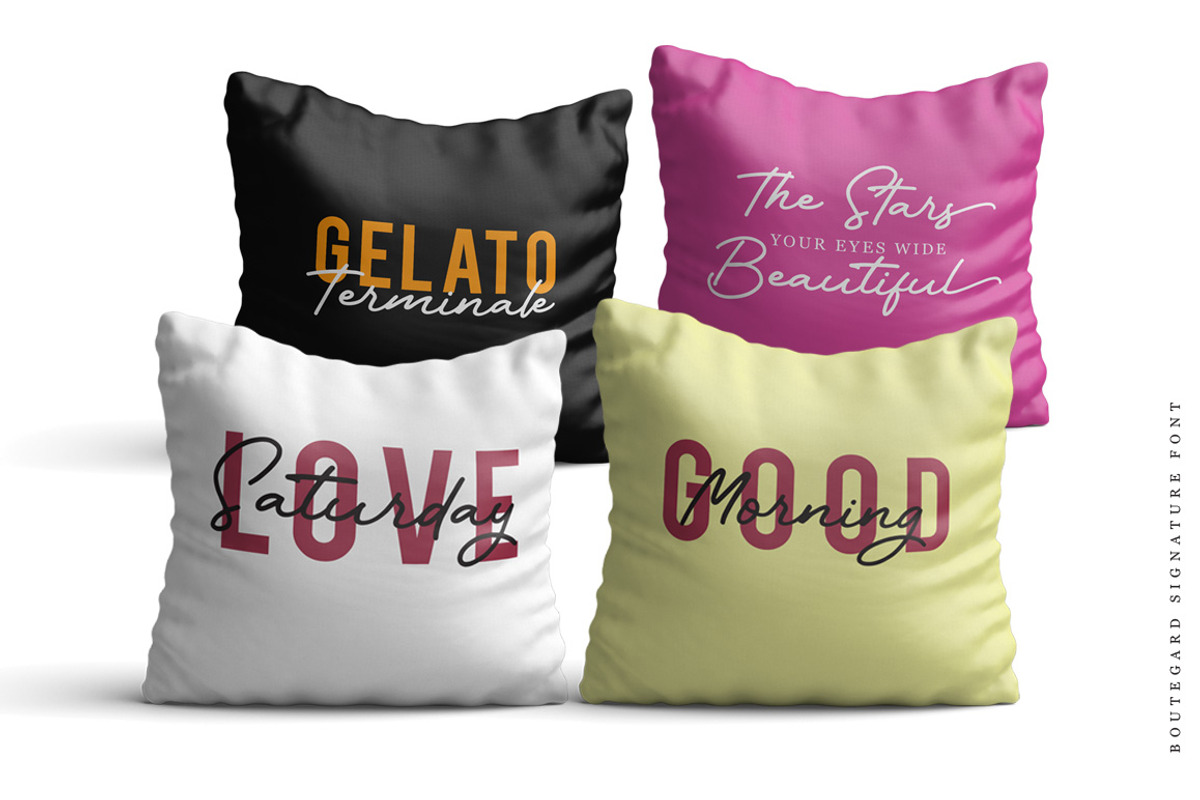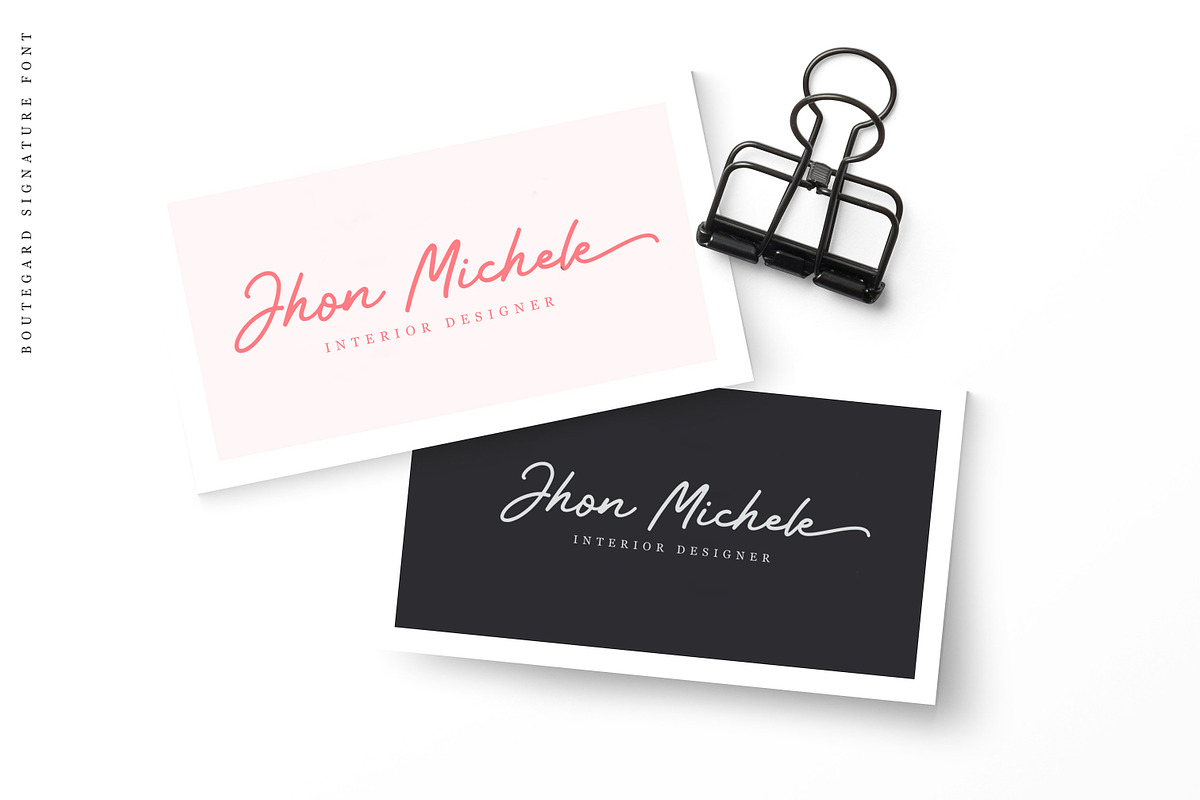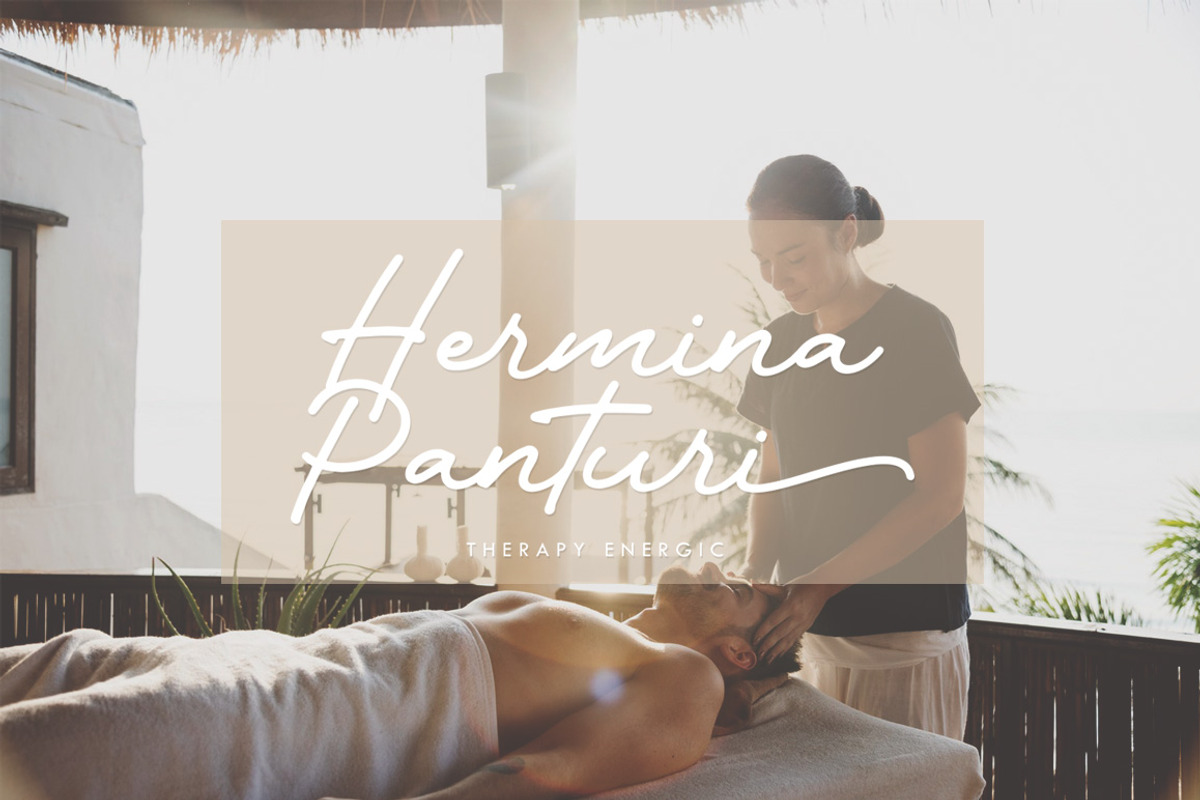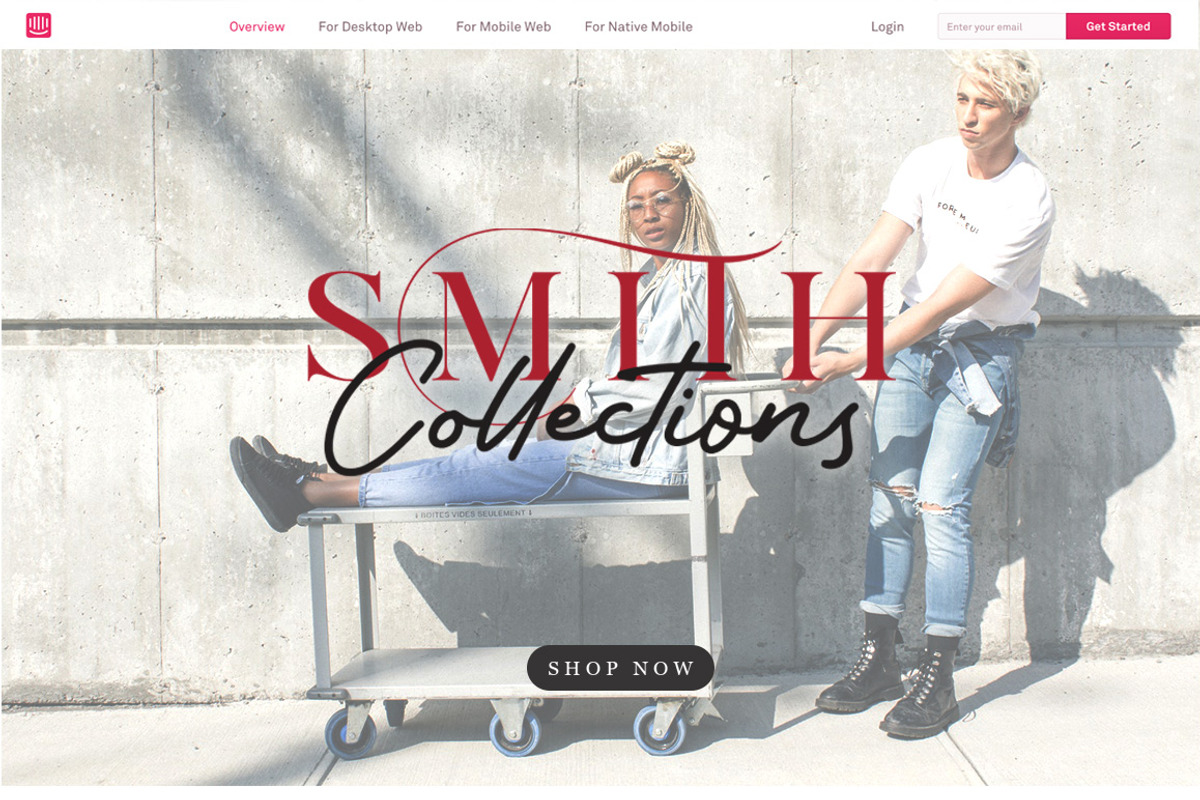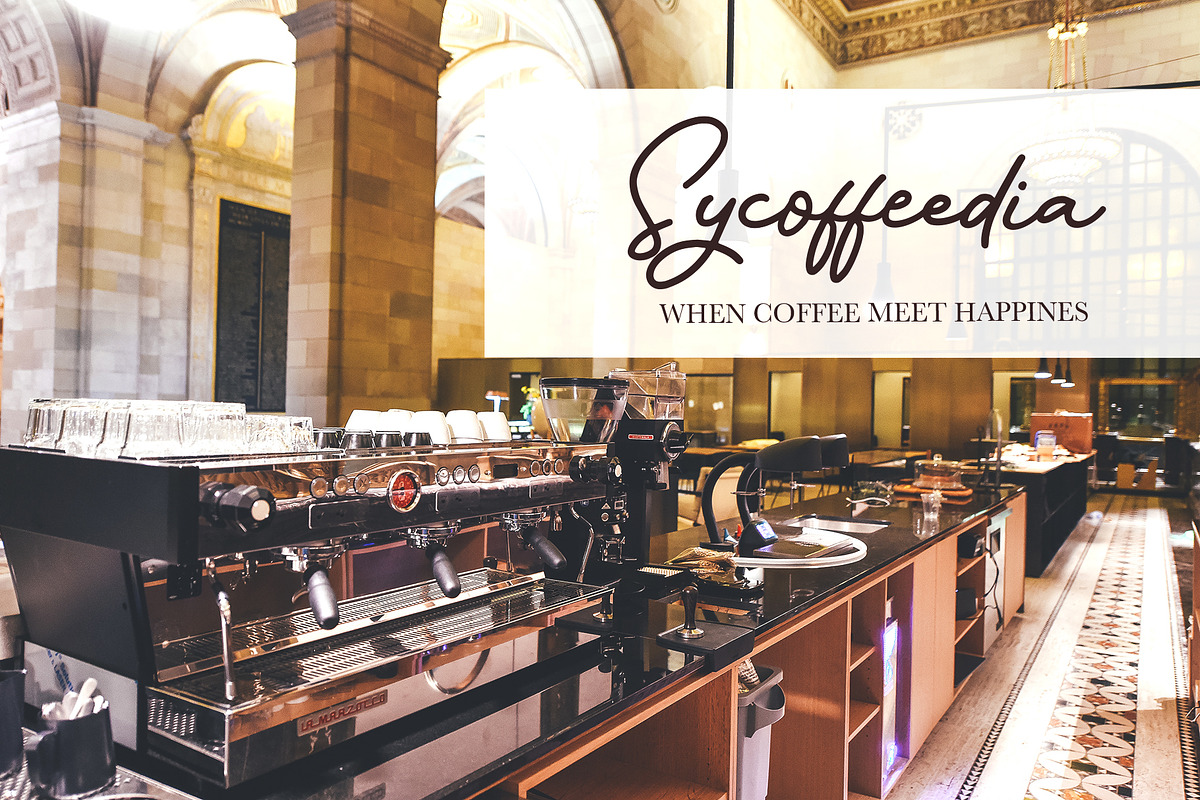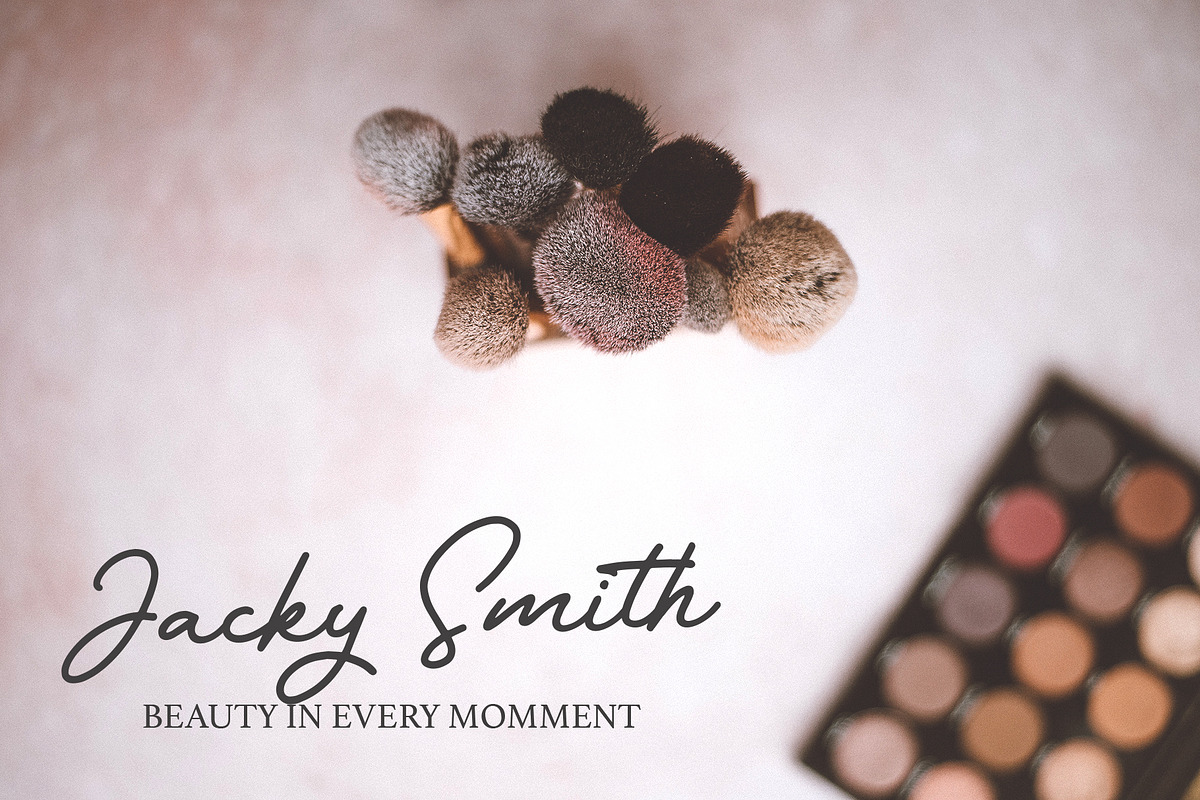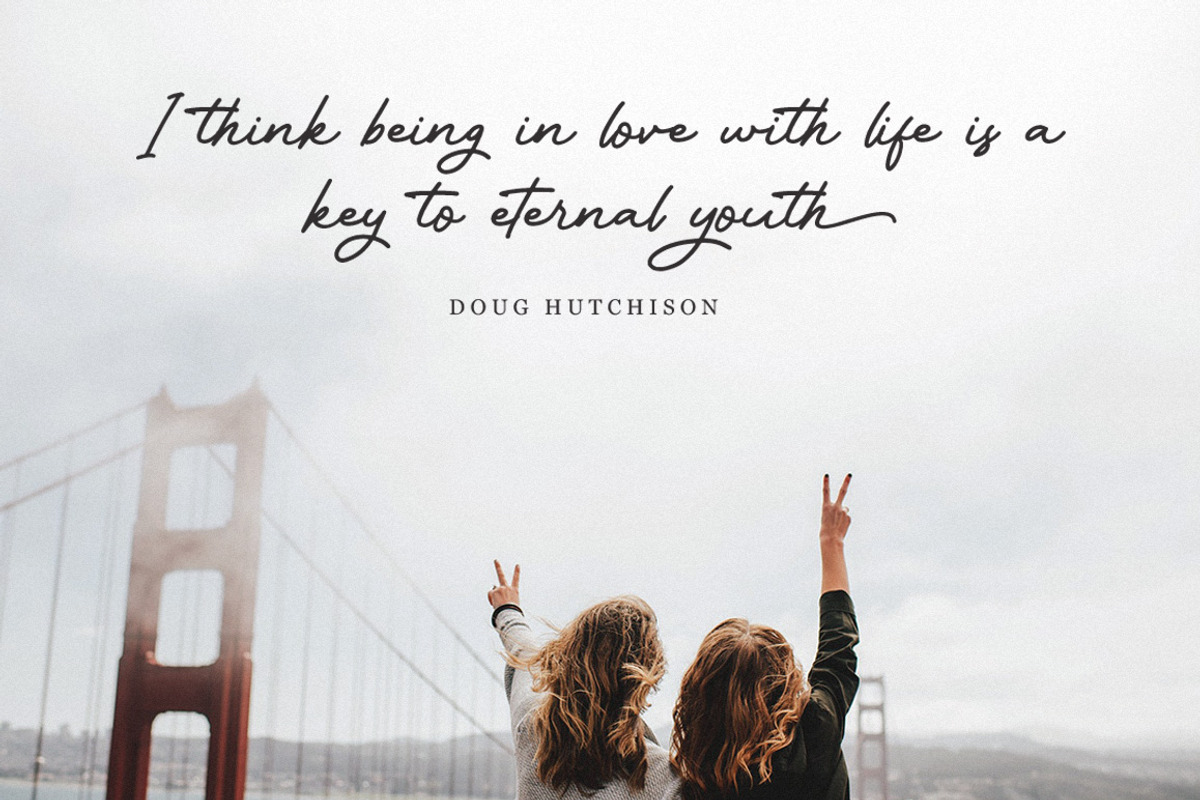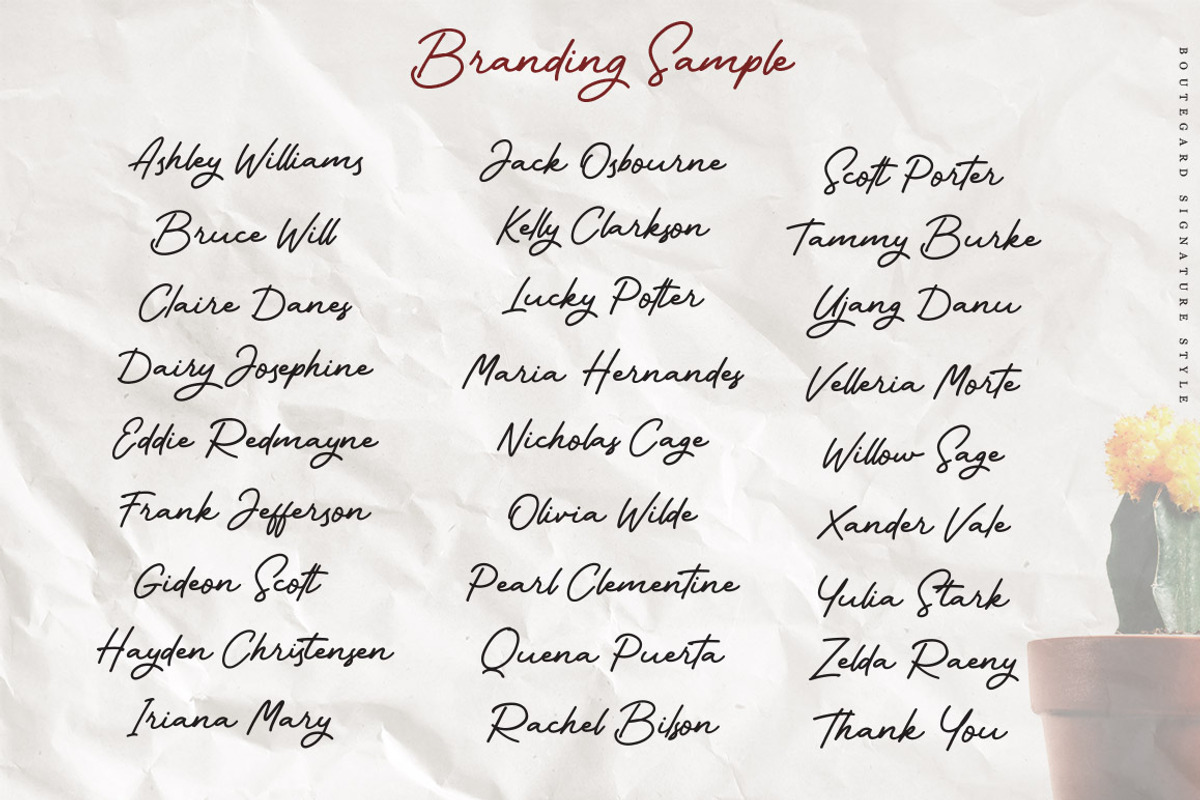
Boutegard Classy Signature
Boutegrad is signature font with elegance vibes. Dediated For those of you who are needing a touch of elegance and modernity for your designs, this font was created for you! There are more than 300+ glyphs on this font including sets Stylistic sets, Contextual Alternates, Terminal Forms, etc. Boutegard is very best choice fonts for : Wedding Invitation, branding, web content, quotes, Posters, Logos, Print Ads, Digital Ads, Promotion Product etc
- Character set A-Z with special uppercase letters
- Discretionary Ligatures
- Terminal Forms